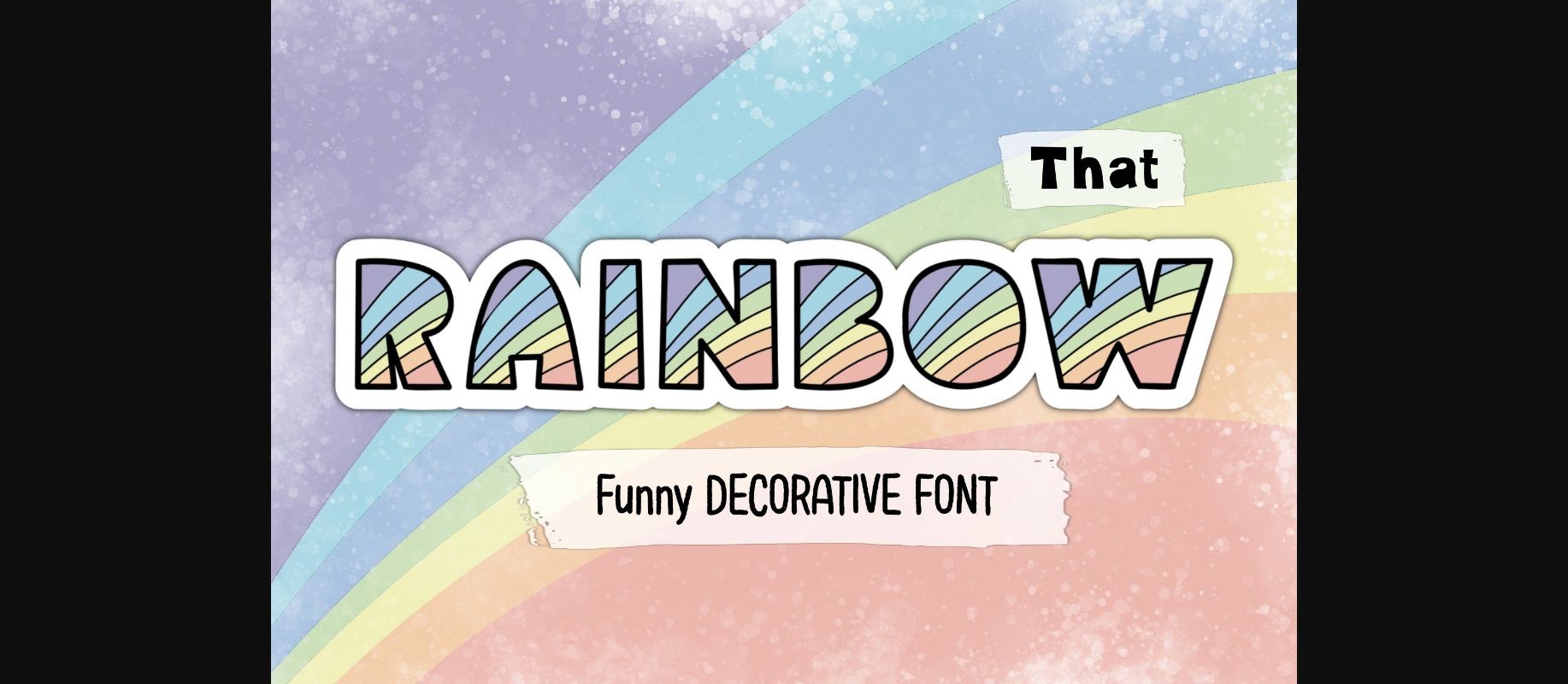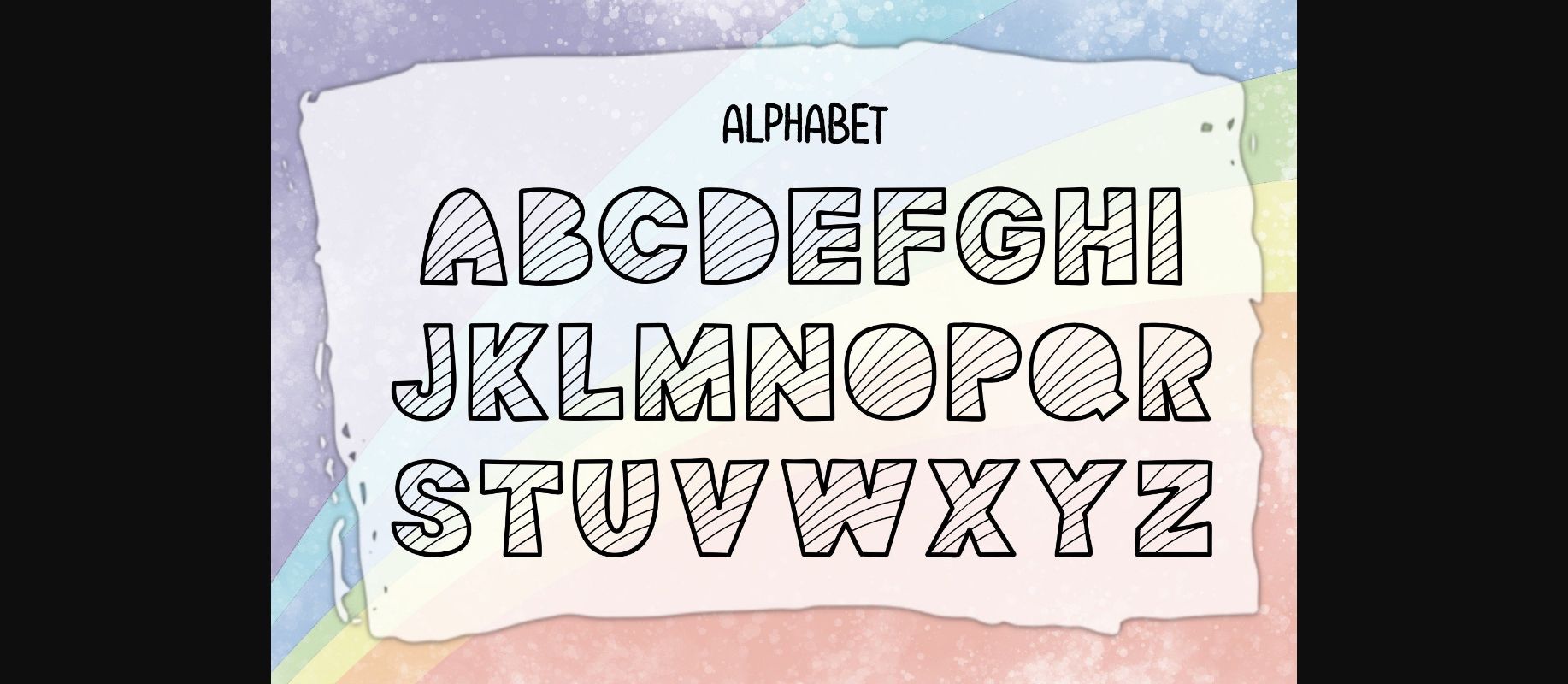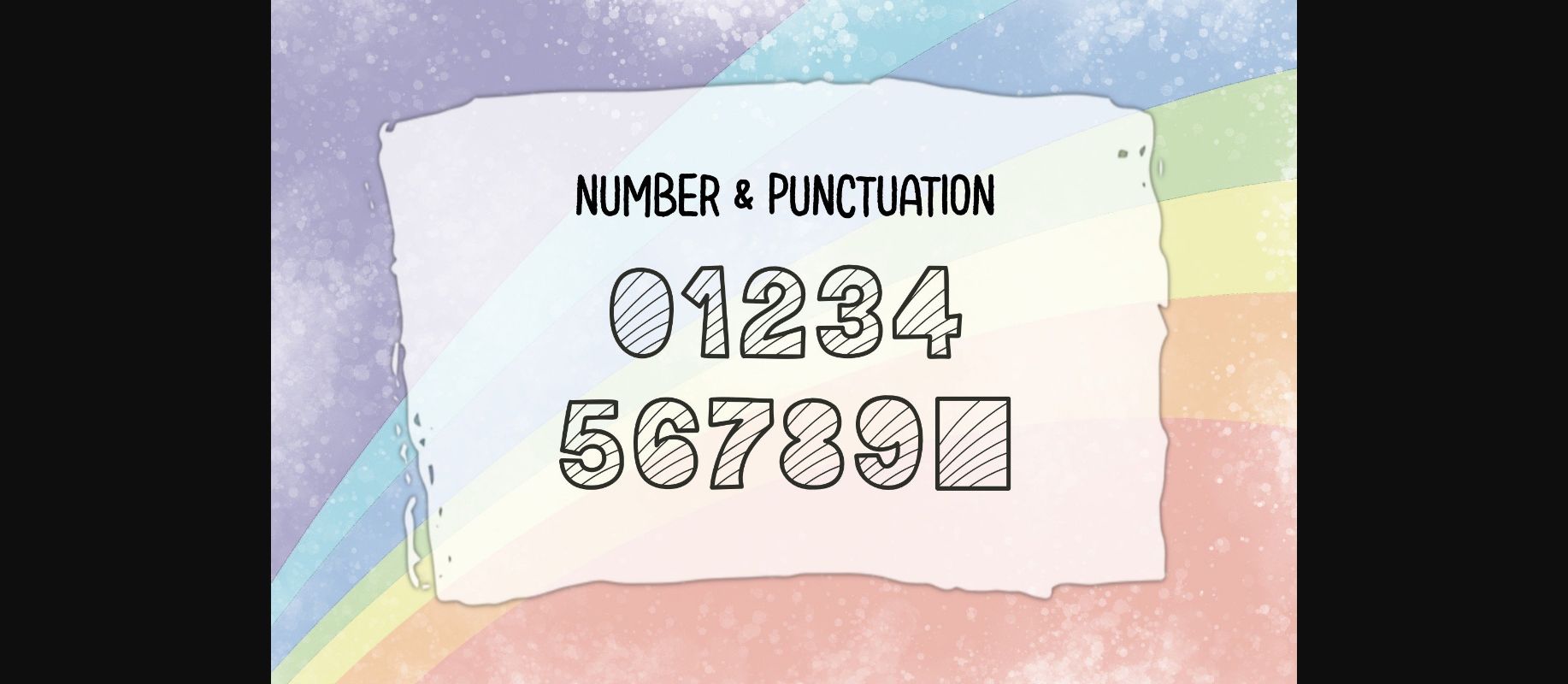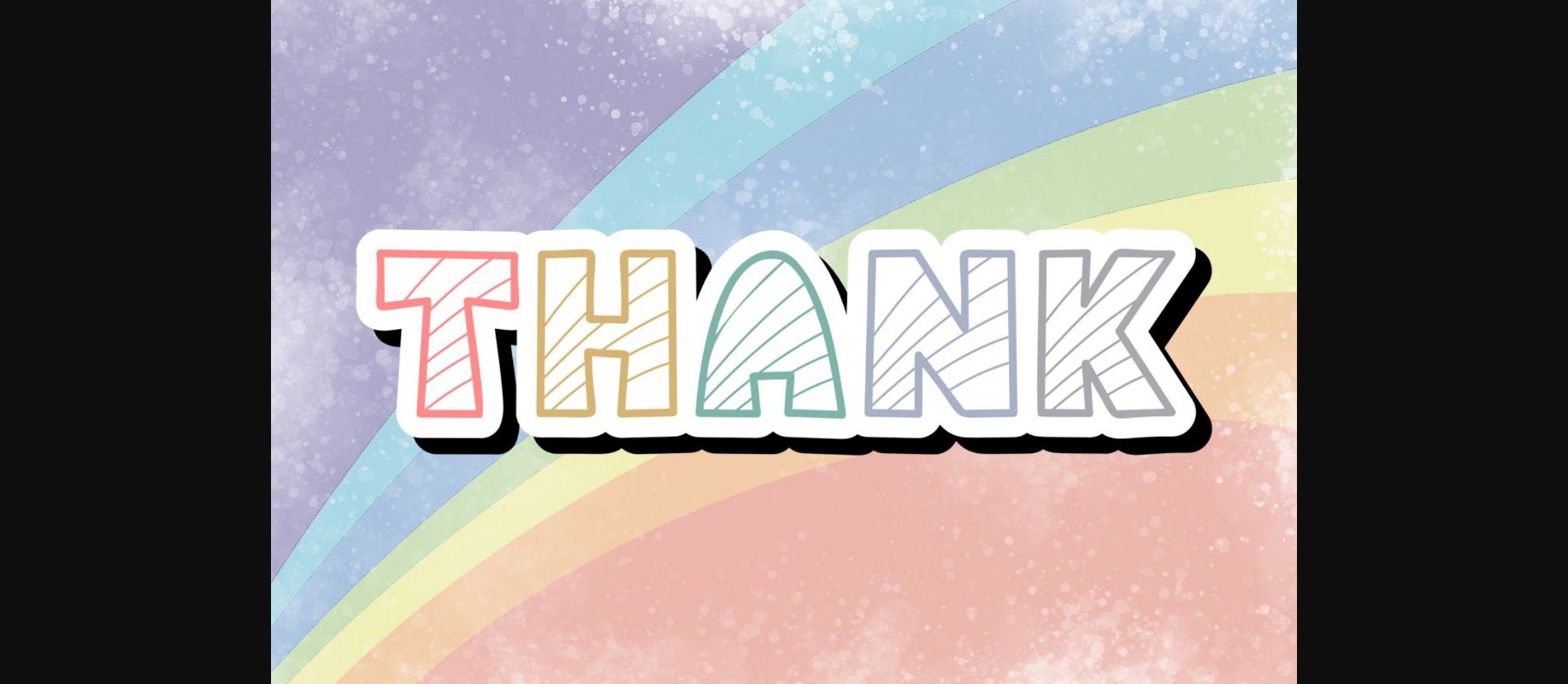
HomeDecorative FontsThat Rainbow Font Decorative Fonts That Rainbow Font FacebookXPinterestWhatsApp 1 of 6 ... That Rainbow Font Poster 2... That Rainbow Font Poster 3... That Rainbow Font Poster 4... That Rainbow Font Poster 5... That Rainbow Font Poster 6... About That Rainbow Font That Rainbow is a cute and fun decorative sans serif font. This font is the perfect fit for all of your logos, branding, wall art, signs, cards, art prints, t-shirts, coloring pages, and much more! DOWNLOAD NOW People also explored Eve Adam Font Vintage Font Simple Planner Mockingbird Sometimes Font ZP Marimba Font Rafelina Font Welcome Paradise Font January Font 302 0 TagsThat Rainbow Font Previous articleWitch FontNext articleAyana Monogram Font LEAVE A REPLY Cancel reply Comment: Please enter your comment! Name:* Please enter your name here Email:* You have entered an incorrect email address! Please enter your email address here Website: Save my name, email, and website in this browser for the next time I comment. Personal Use Free Equalizer Script Personal Use Free Read more about this font Ciggs Personal Use Free Read more about this font Ancient Script Personal Use Free Read more about this font Starborn Font Personal Use Free Read more about this font BLOG Free Fonts Risk: Why Free Fonts Can Be Dangerous for Designers Free Fonts Risk: Why Free Fonts Can Be Dangerous for Designers Using free fonts is a common practice in web and graphic design. However, the... How to Install and Use Fonts on Windows, macOS, and Web Projects Best Fonts for YouTube Videos: Make Your Thumbnails Stand Out Top 10 Handwritten Fonts That Elevate Your Designs